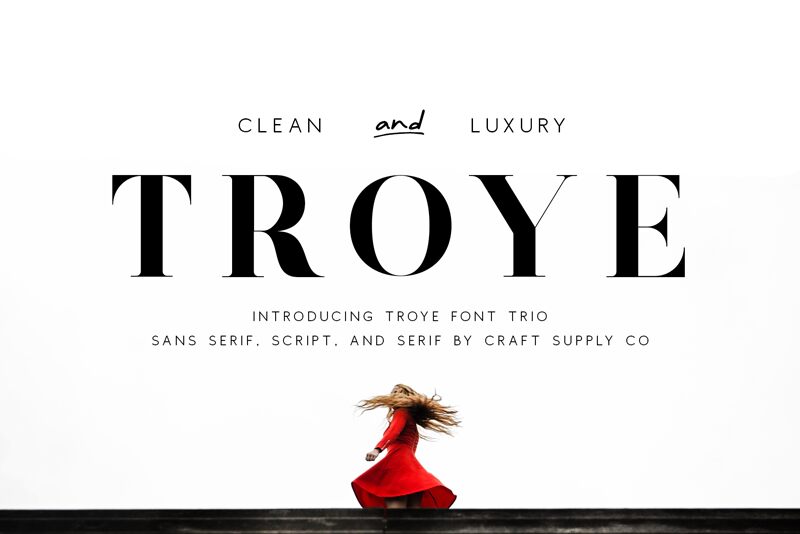
Troye Sans font by Craft Supply Co. is a striking sans serif typeface that captivates with its clean, modern lines and refined simplicity. Its elegant appearance makes it ideal for diverse design contexts, enhancing visual appeal while maintaining readability.
With its versatile aesthetic, Troye Sans is perfect for branding, headlines, and digital media where clarity and style are paramount. The font’s sleek design ensures that it stands out in both print and online applications. Whether you're crafting a sophisticated logo or creating engaging website content, this free font offers an accessible solution to elevate your projects.